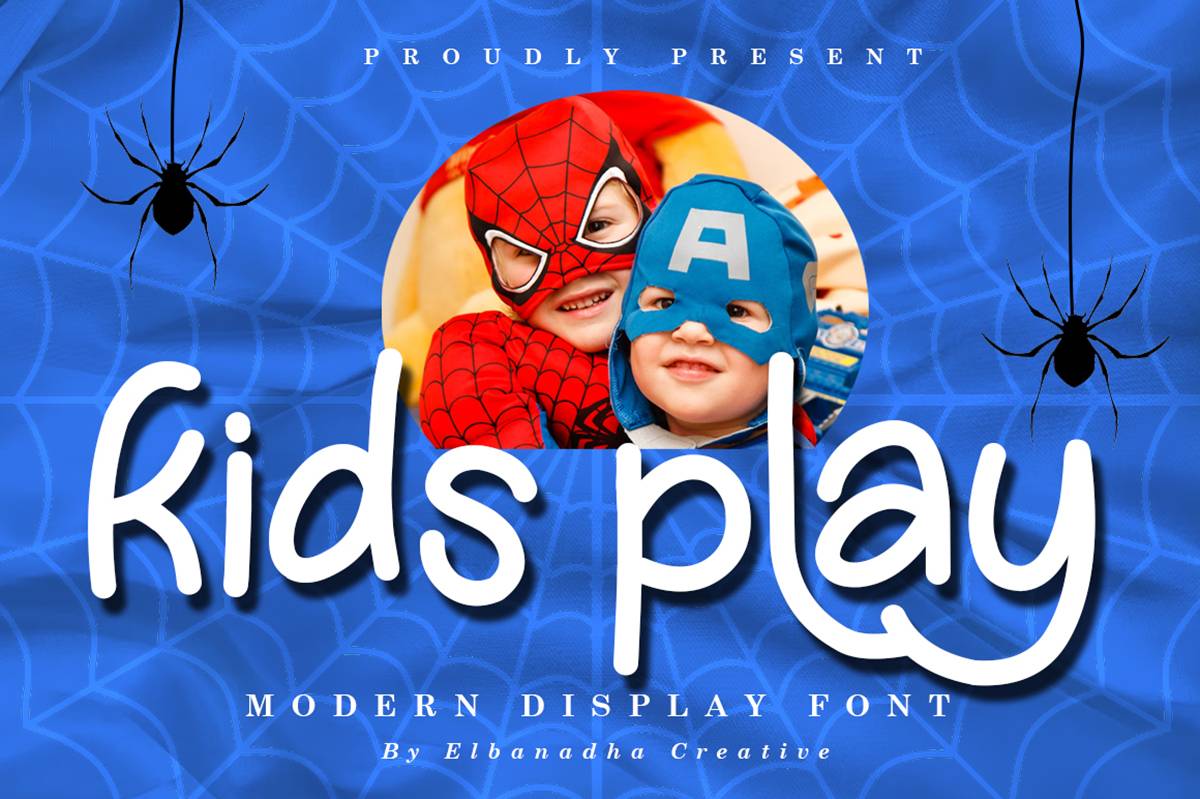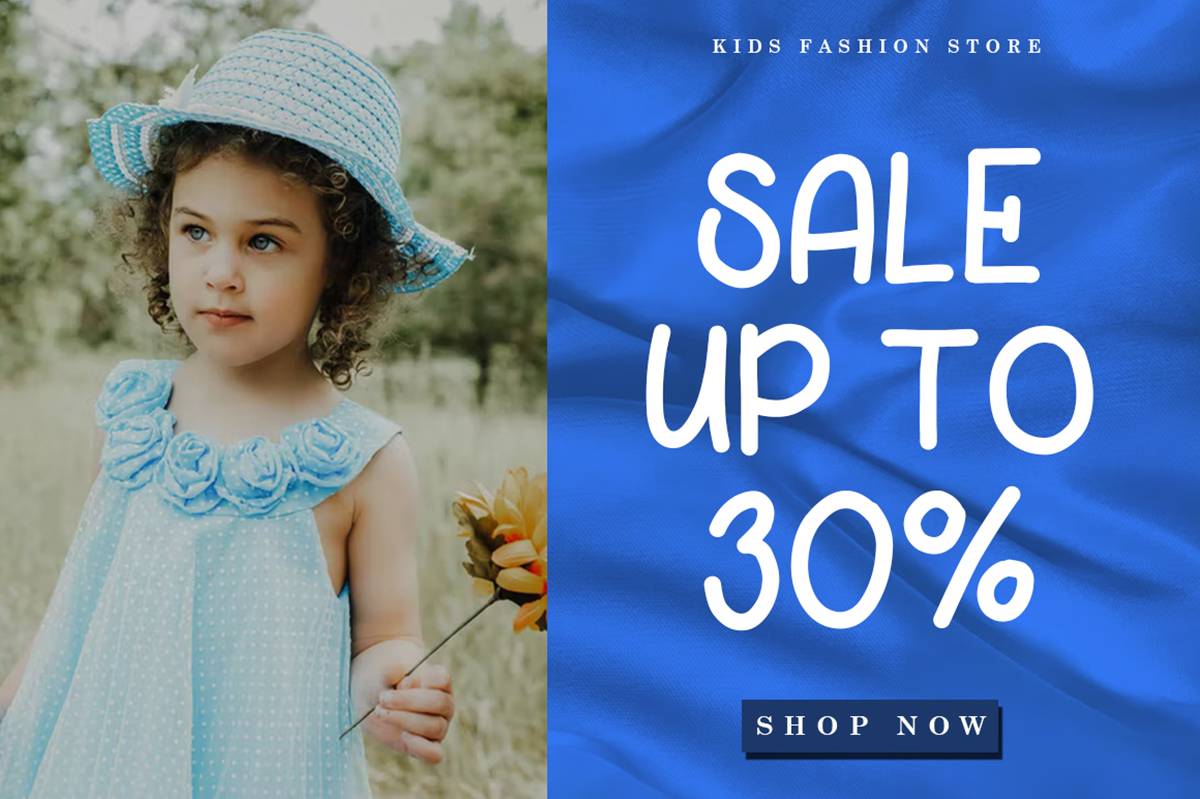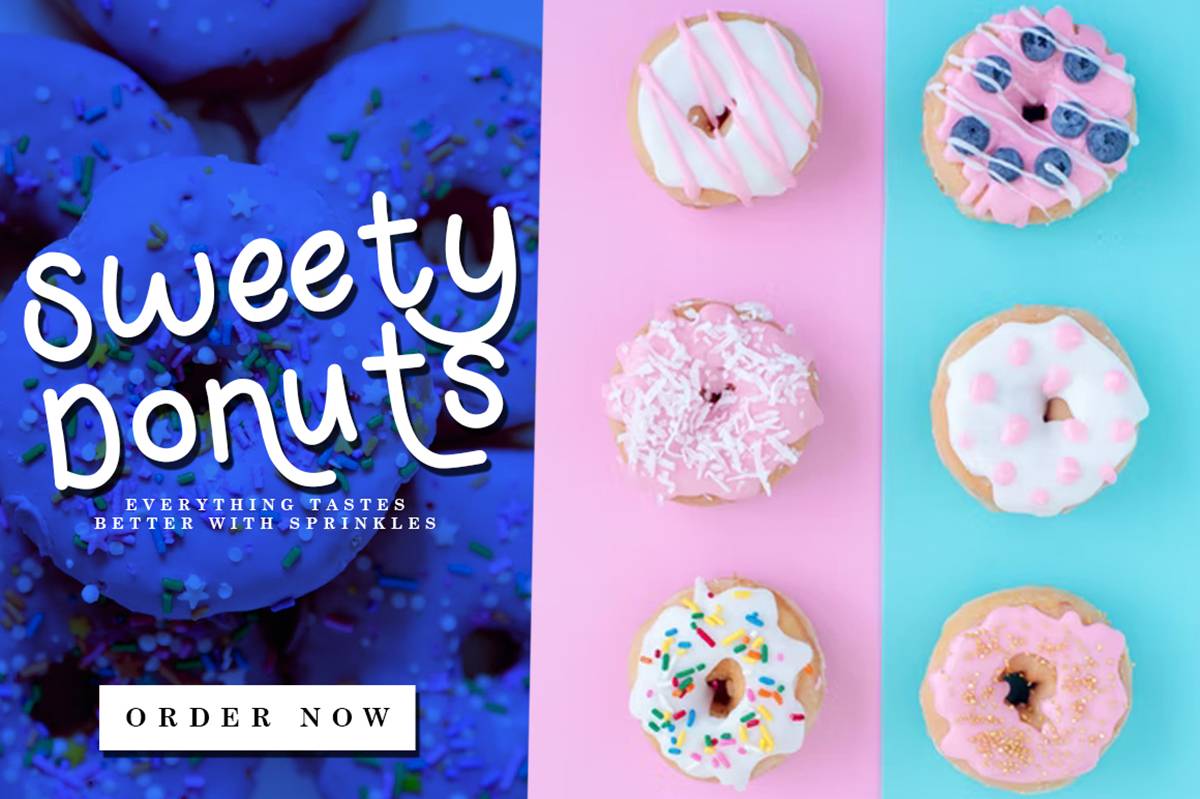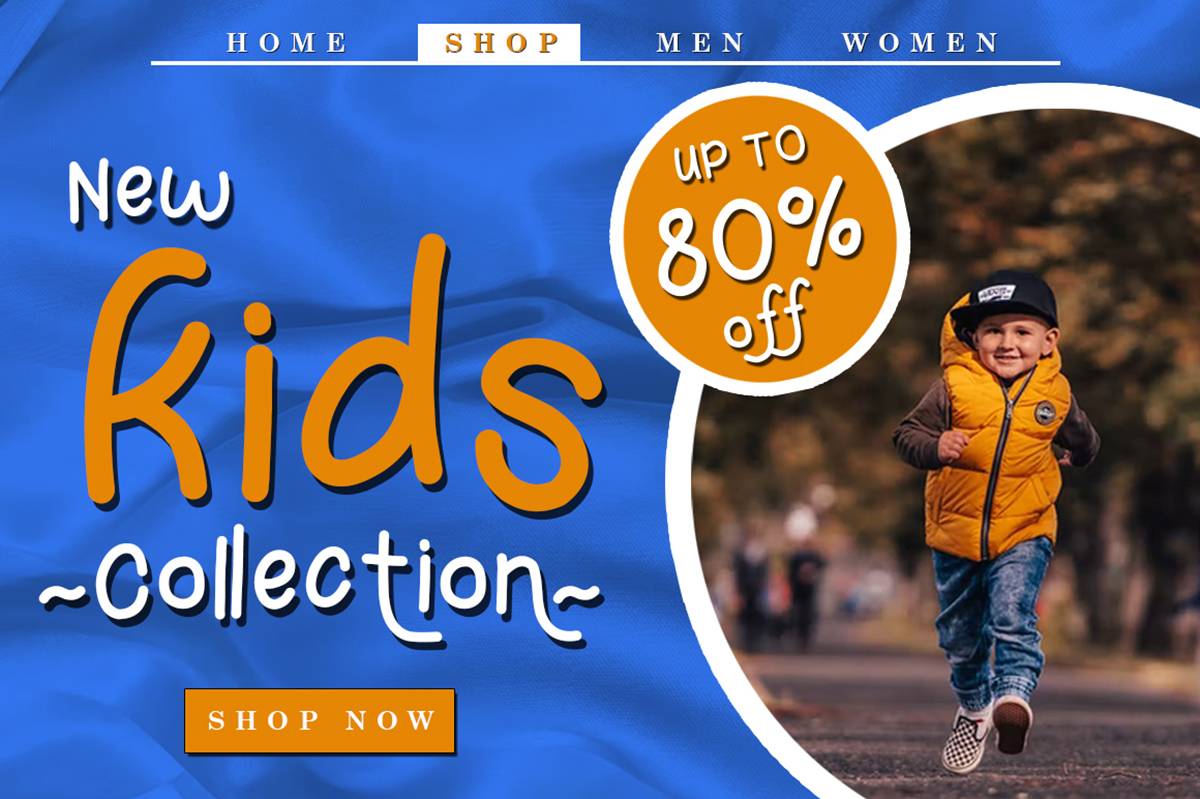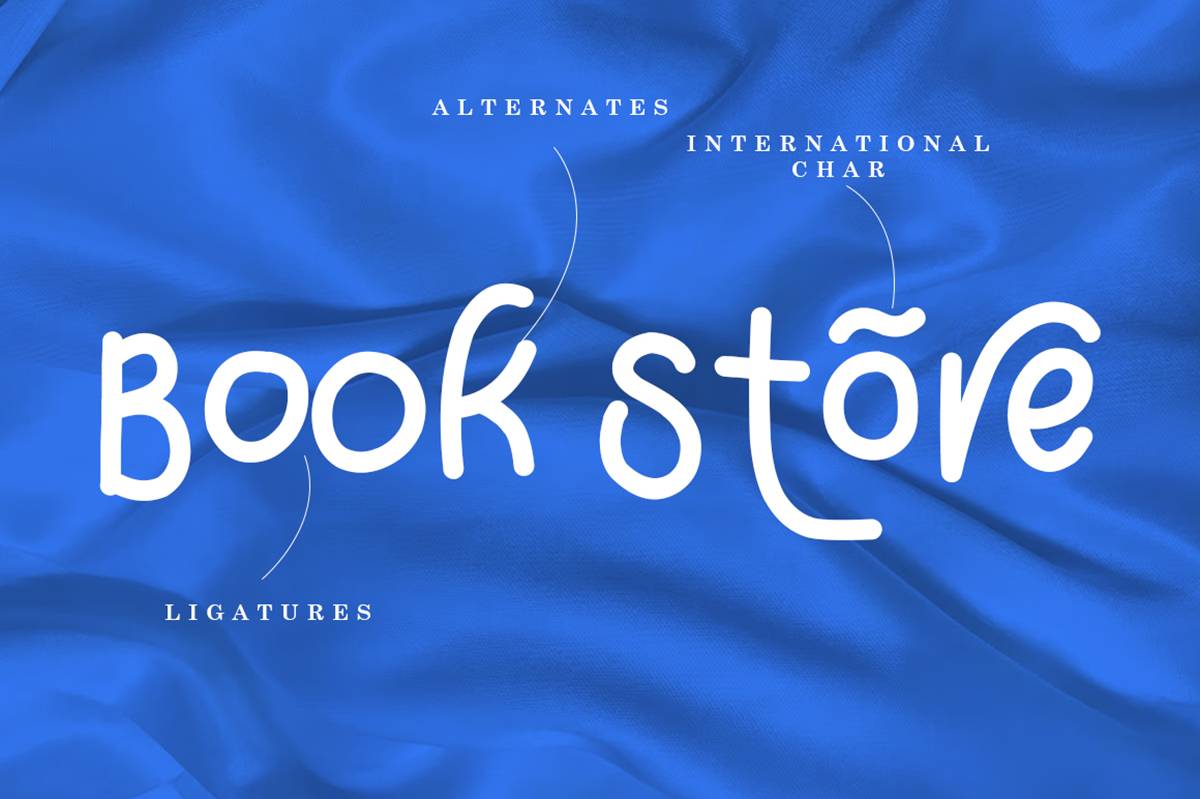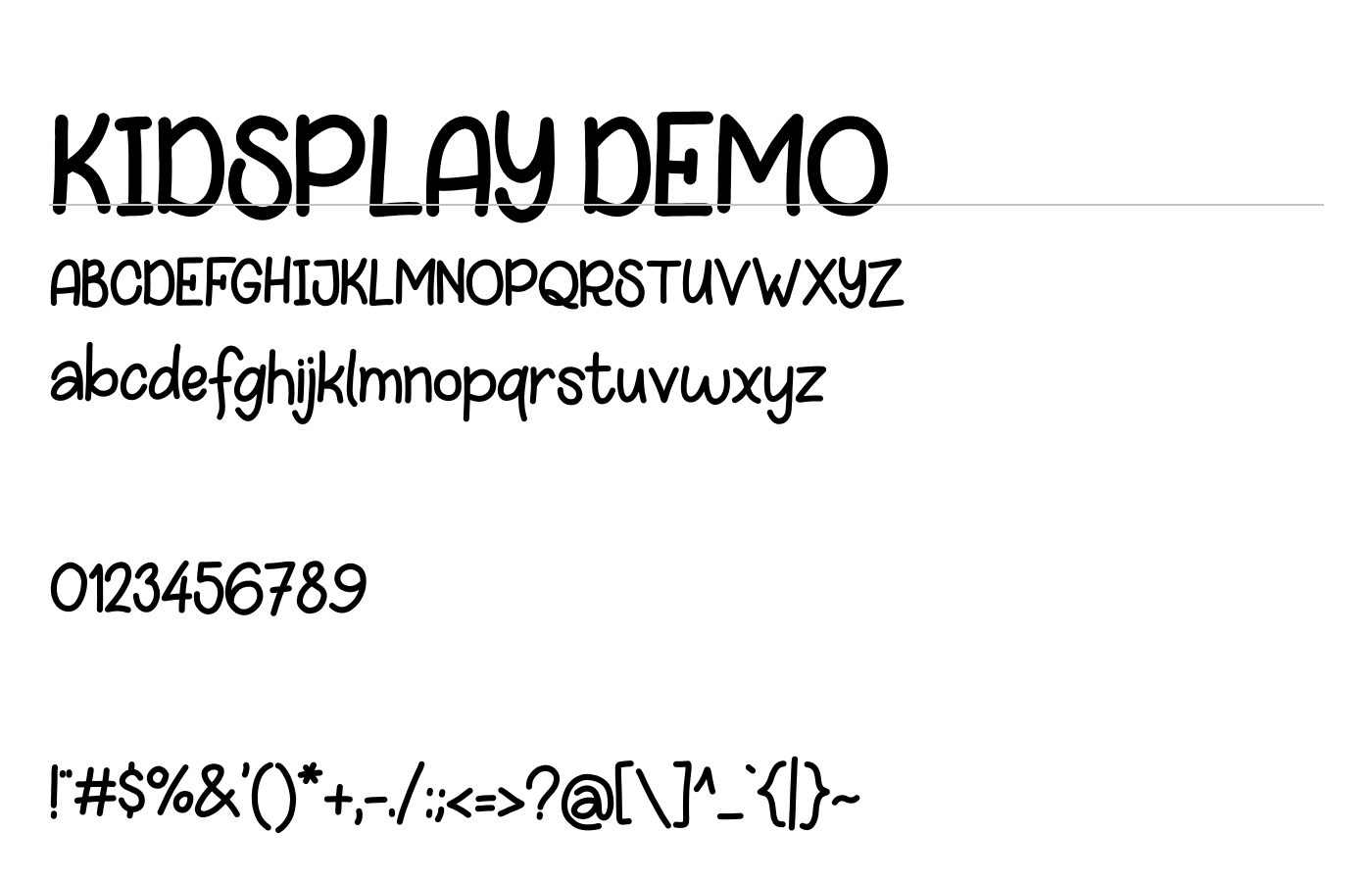
Kids Play Font is a fun and playful handwritten sans serif with a casual, childlike charm. Its rounded, uneven strokes and lively letterforms create an inviting, friendly feel perfect for children’s books, educational materials, and playful branding. This font’s informal style works best in lively headlines, logos, or creative projects aiming to evoke warmth and creativity.
Kids Play Font
About Kids Play Font
| Font family | Kids Play Font |
| Release date | 2022-01-22 |
| Designer | Elbanadha Creative |